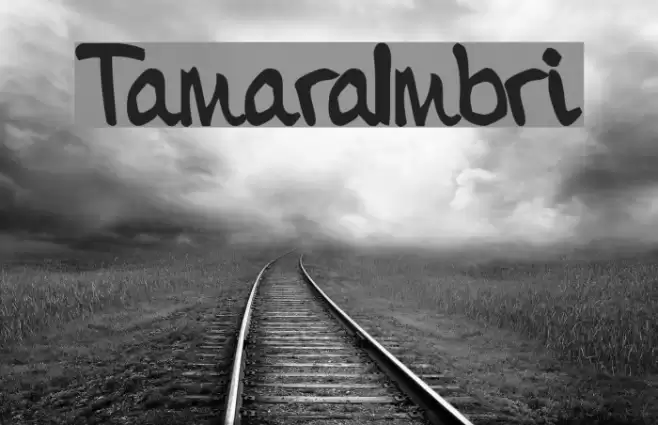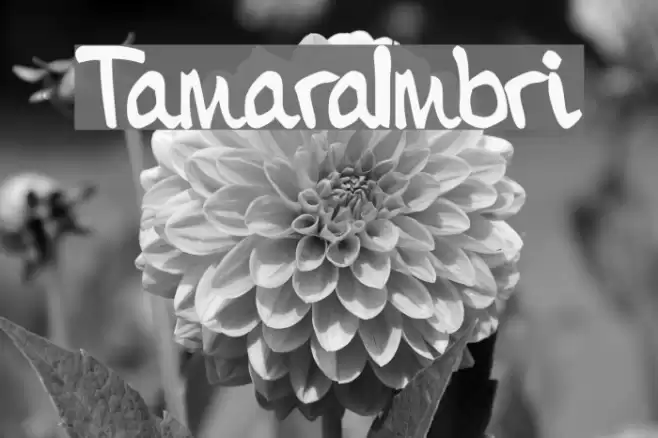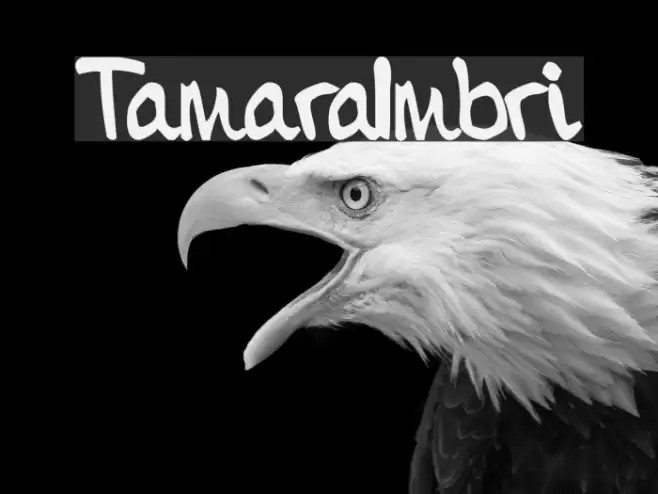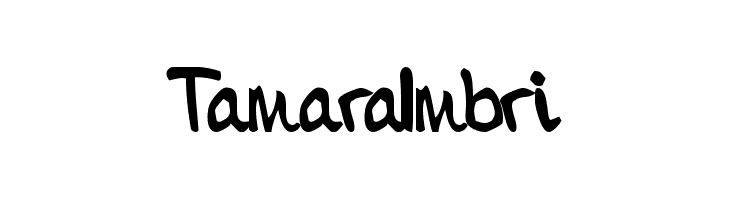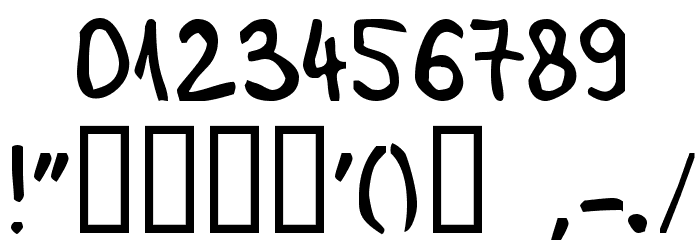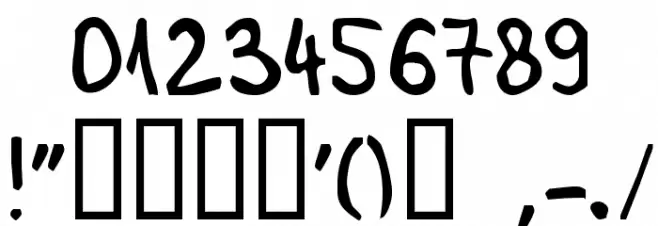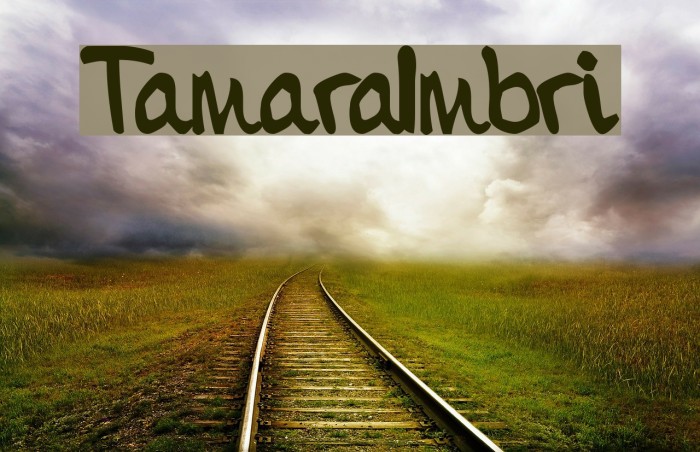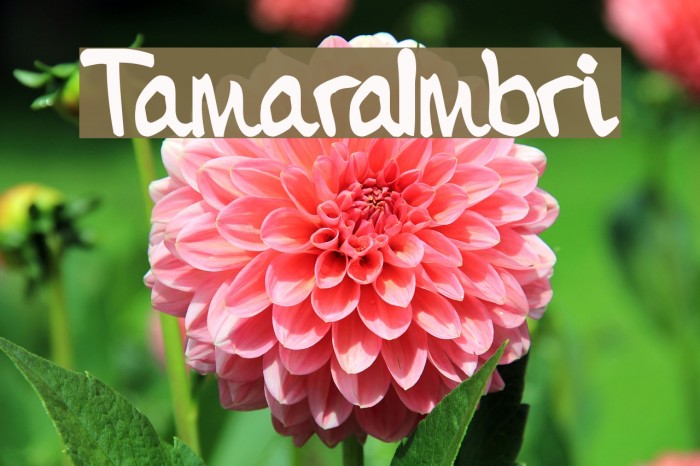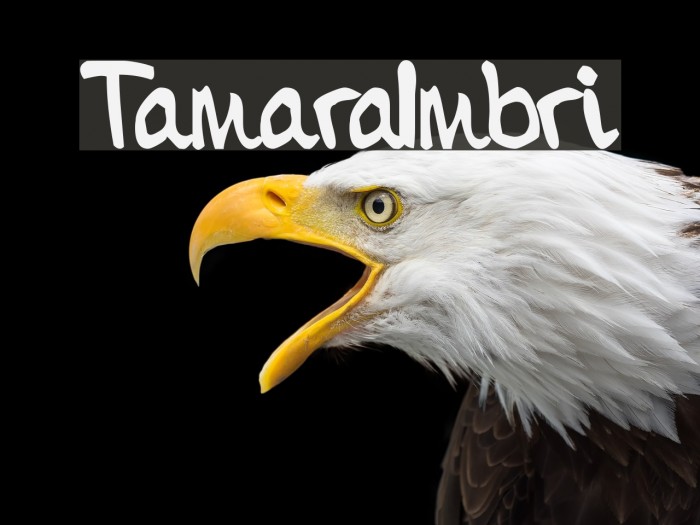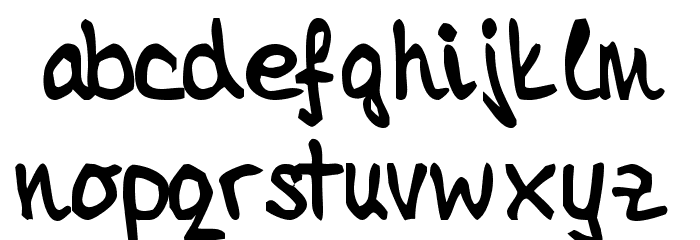
TamaraImbri Font
TamaraImbri Description
This playful and energetic font features a handwritten style with bold, rounded strokes that give it a casual and friendly appearance. The characters are slightly irregular, adding to the informal and approachable feel. The uppercase letters are bold and prominent, while the lowercase letters maintain a consistent flow, enhancing readability. The numerals are clear and distinct, matching the overall style of the alphabet. Special characters are included, maintaining the same lively and dynamic aesthetic. This font is perfect for projects that require a personal touch or a fun, informal vibe.
A bold, handwritten font with a playful and casual style from Handwritten fonts.
- Proposed Projects: Ideal for greeting cards, children's books, playful branding, and social media graphics.
- Overall Style: Casual
- Use Case: Logos, Headlines, Informal Text